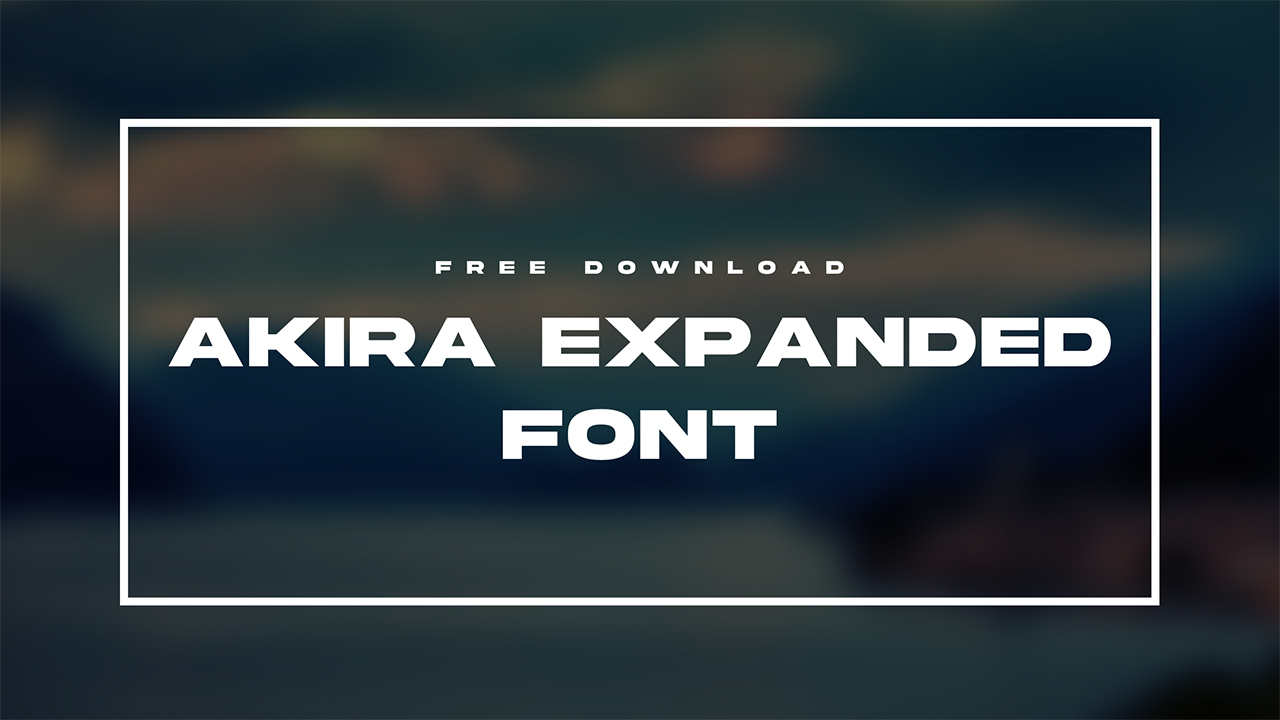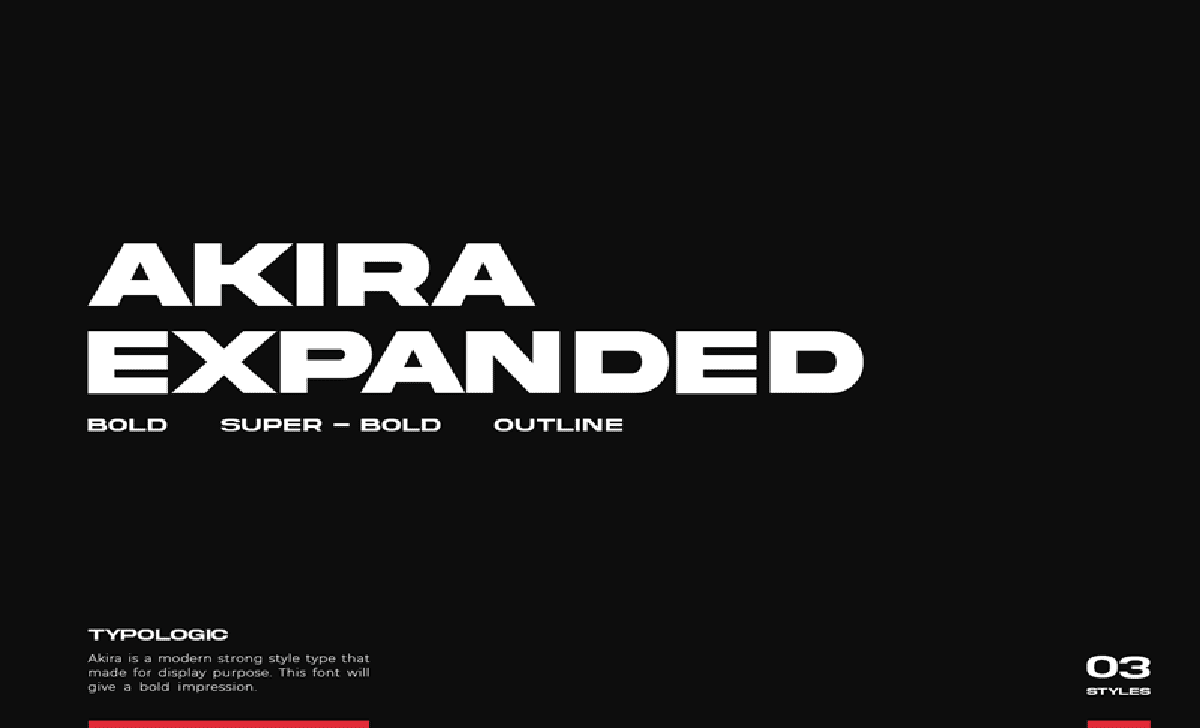
Akira Expanded Font is a bold, modern sans-serif typeface created by Typologic. Akira Expanded is a striking sans-serif typeface known for its modern and clean design. Characterized by its bold and geometric shapes, Akira Expanded features extended letterforms that enhance readability and create a strong visual impact.
Using Occasions Of The font
- Great for logos and invitations
- Stationery and wedding designs
- Suitable for business cards, flyers, and clothing
- Product labels, watermarks, and more
Akira Expanded Font excels in headlines, website headers, marketing materials, and branding. Its bold, modern style and wide, all-caps design make it ideal for impactful text and striking visuals, perfect for various design and promotional needs.
Found prominently in headlines, website layouts, and branding materials, this font’s bold, geometric forms create a commanding presence that effortlessly captures attention. Its versatility is evident in its use for diverse applications, from impactful advertising and sleek social media graphics to elegant wedding invitations and contemporary product packaging.
The Akira Expanded font shines in various design contexts due to its striking and modern characteristics. The variety of styles. It works well for digital interfaces, print media, and promotional materials. The font is stylish, easy to read, and integrates smoothly into digital and print design workflows.
1.Who Designed The Akira Expanded Font?
Akira Expanded Font was designed by Typologic, a design studio for creating modern, high-quality typefaces focusing on strong, impactful aesthetics.
2.How To Use Akira Expanded Font In Design?
Use Akira Expanded Font for bold headlines, headers, and prominent text. Its wide, all-caps style works well in both digital and print designs, adding a modern touch to your layouts.
3.What Are The Design Principles Behind Akira Expanded Font?
Akira Expanded Font follows geometric design principles with bold, wide letterforms and consistent spacing. Its expanded style ensures strong visual impact and readability.
4.What Are The Design Applications That Support Akira Expanded Font?
5.What Are The Color Palettes That Complement Akira Expanded Font?
Akira Expanded Font pairs well with high-contrast color palettes, such as black and white or bold primary colors. Neutral tones like grey or beige also complement its modern, clean style.
6.How To Customize Akira Expanded Font For A Specific Project?
Customize Akira Expanded Font in your design software by adjusting letter spacing, kerning, and font weights. Use alternative glyphs to match your project’s style and ensure it meets your specific design needs.
7.What Are The Recommended Font Sizes For Akira Expanded Font In Different Mediums?
For print, use Akira Expanded Font at sizes 24pt and above for headlines, and 12pt to 18pt for body text. On screens, 32px for headers and 16px to 20px for body text are ideal.
8.What Kind Of Font Is Akira Expanded Font?
Akira Expanded Font is a geometric sans-serif typeface characterized by its bold, wide letterforms and modern, clean design.